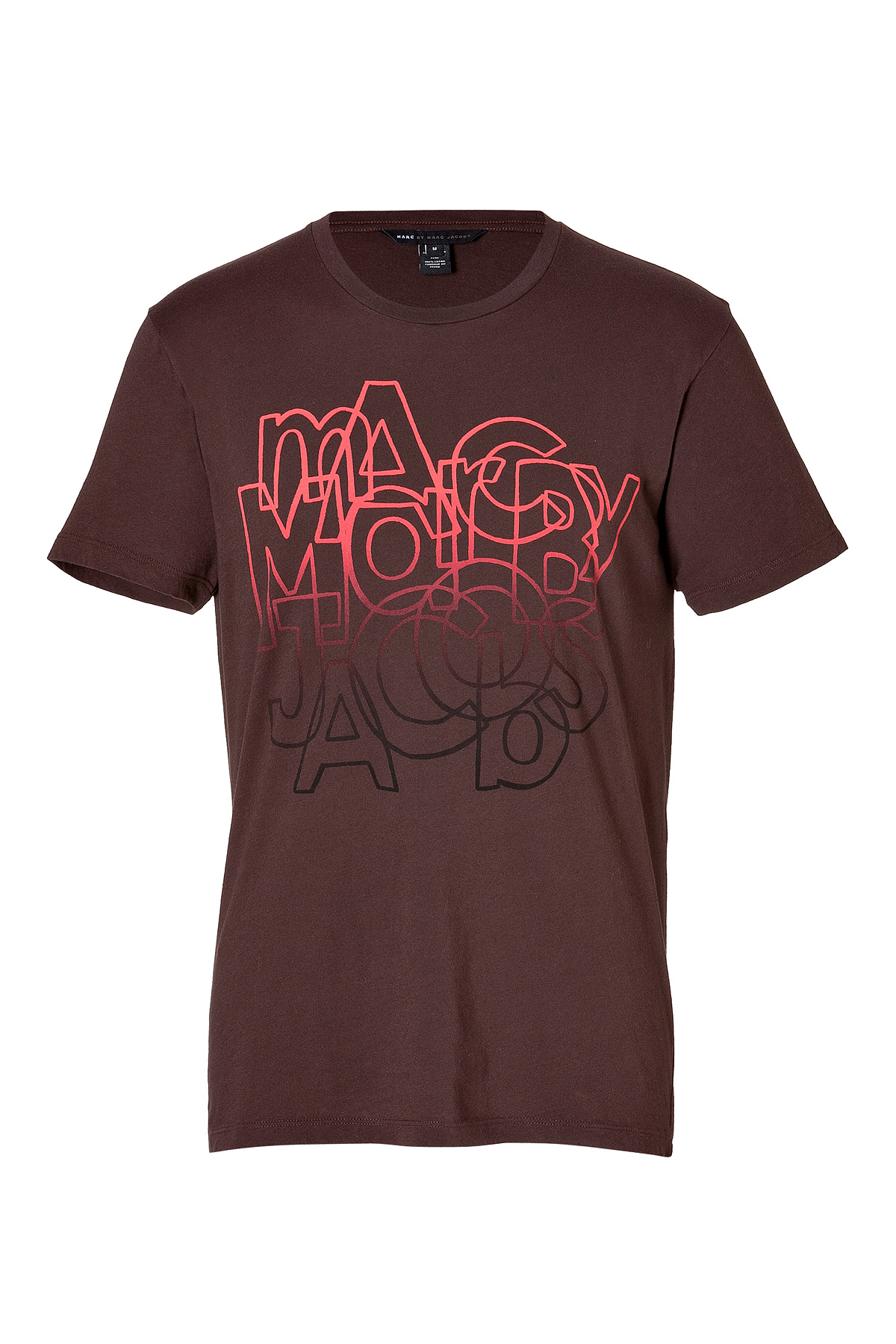
Marc Jacobs Font - It's a doctored version of at sackers gothic medium in lowercase. As far as i know mj uses their own version of this font for. Explore marc jacobs fonts at myfonts. Browse by alphabetical listing, by style, by author or by popularity. Archive of freely downloadable fonts. Marc jacobs version 1.000 font (font family name: Regular), 400 characters in total. Unleash your design potential today! Discover a world of captivating typography for your creative projects. Archive of freely downloadable fonts.
'find my font' is an easy to use application for identifying fonts in digital images. Archive of freely downloadable fonts. Browse by alphabetical listing, by style, by author or by popularity. Unleash your design potential today! Discover a world of captivating typography for your creative projects. As far as i know mj uses their own version of this font for. It's a doctored version of at sackers gothic medium in lowercase. Regular), 400 characters in total. Marc jacobs version 1.000 font (font family name:
Browse by alphabetical listing, by style, by author or by popularity. Browse by alphabetical listing, by style, by author or by popularity. Regular), 400 characters in total. Unleash your design potential today! Archive of freely downloadable fonts. Marc jacobs version 1.000 font (font family name: 'find my font' is an easy to use application for identifying fonts in digital images. Archive of freely downloadable fonts. Explore marc jacobs fonts at myfonts. As far as i know mj uses their own version of this font for.
Regular), 400 characters in total. As far as i know mj uses their own version of this font for. Browse by alphabetical listing, by style, by author or by popularity. Archive of freely downloadable fonts. 'find my font' is an easy to use application for identifying fonts in digital images.
Browse by alphabetical listing, by style, by author or by popularity. Marc jacobs version 1.000 font (font family name: As far as i know mj uses their own version of this font for. Discover a world of captivating typography for your creative projects. 'find my font' is an easy to use application for identifying fonts in digital images.
Discover a world of captivating typography for your creative projects. Browse by alphabetical listing, by style, by author or by popularity. It's a doctored version of at sackers gothic medium in lowercase. 'find my font' is an easy to use application for identifying fonts in digital images. Archive of freely downloadable fonts.
Unleash your design potential today! Marc jacobs version 1.000 font (font family name: Archive of freely downloadable fonts. Regular), 400 characters in total. Browse by alphabetical listing, by style, by author or by popularity.
Browse by alphabetical listing, by style, by author or by popularity. Archive of freely downloadable fonts. Marc jacobs version 1.000 font (font family name: Explore marc jacobs fonts at myfonts. As far as i know mj uses their own version of this font for.
Archive of freely downloadable fonts. Discover a world of captivating typography for your creative projects. 'find my font' is an easy to use application for identifying fonts in digital images. As far as i know mj uses their own version of this font for. Unleash your design potential today!
Regular), 400 Characters In Total.
Archive of freely downloadable fonts. Browse by alphabetical listing, by style, by author or by popularity. Unleash your design potential today! Browse by alphabetical listing, by style, by author or by popularity.
As Far As I Know Mj Uses Their Own Version Of This Font For.
'find my font' is an easy to use application for identifying fonts in digital images. Discover a world of captivating typography for your creative projects. Marc jacobs version 1.000 font (font family name: It's a doctored version of at sackers gothic medium in lowercase.